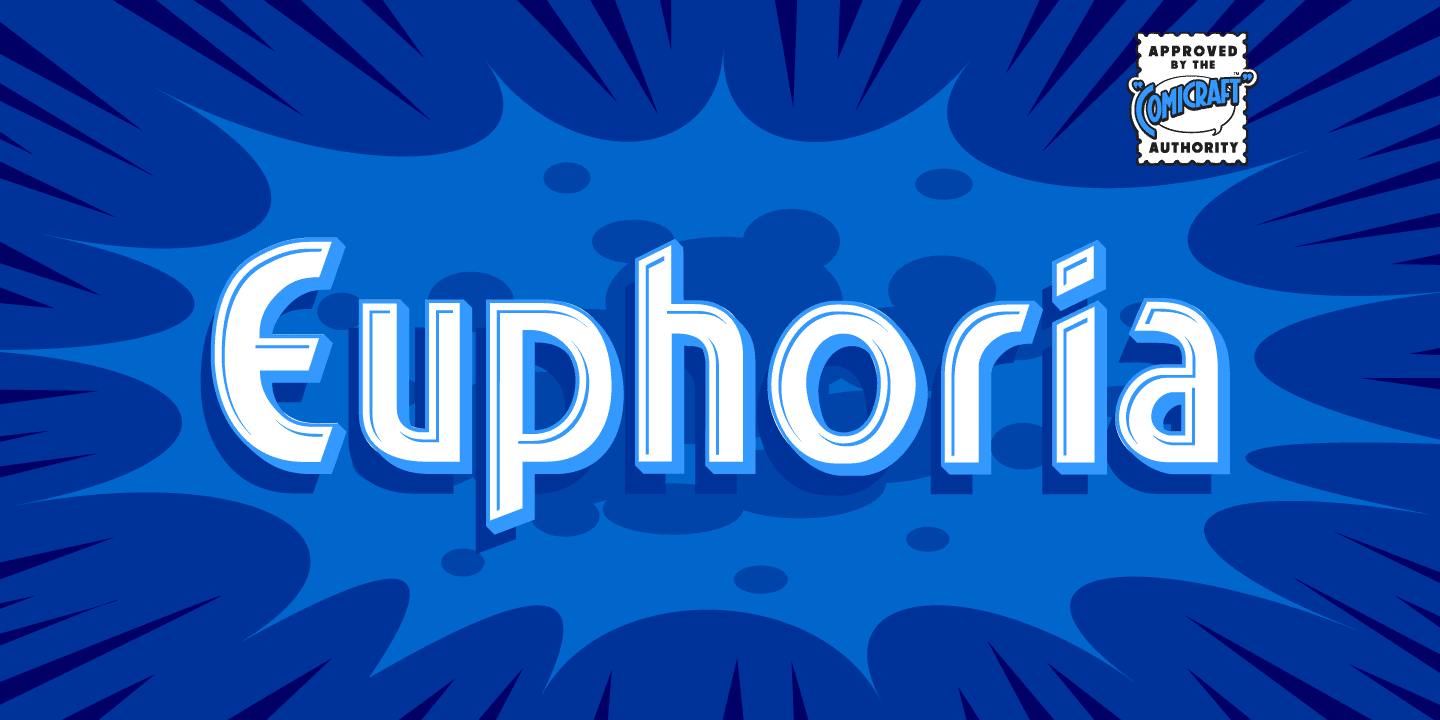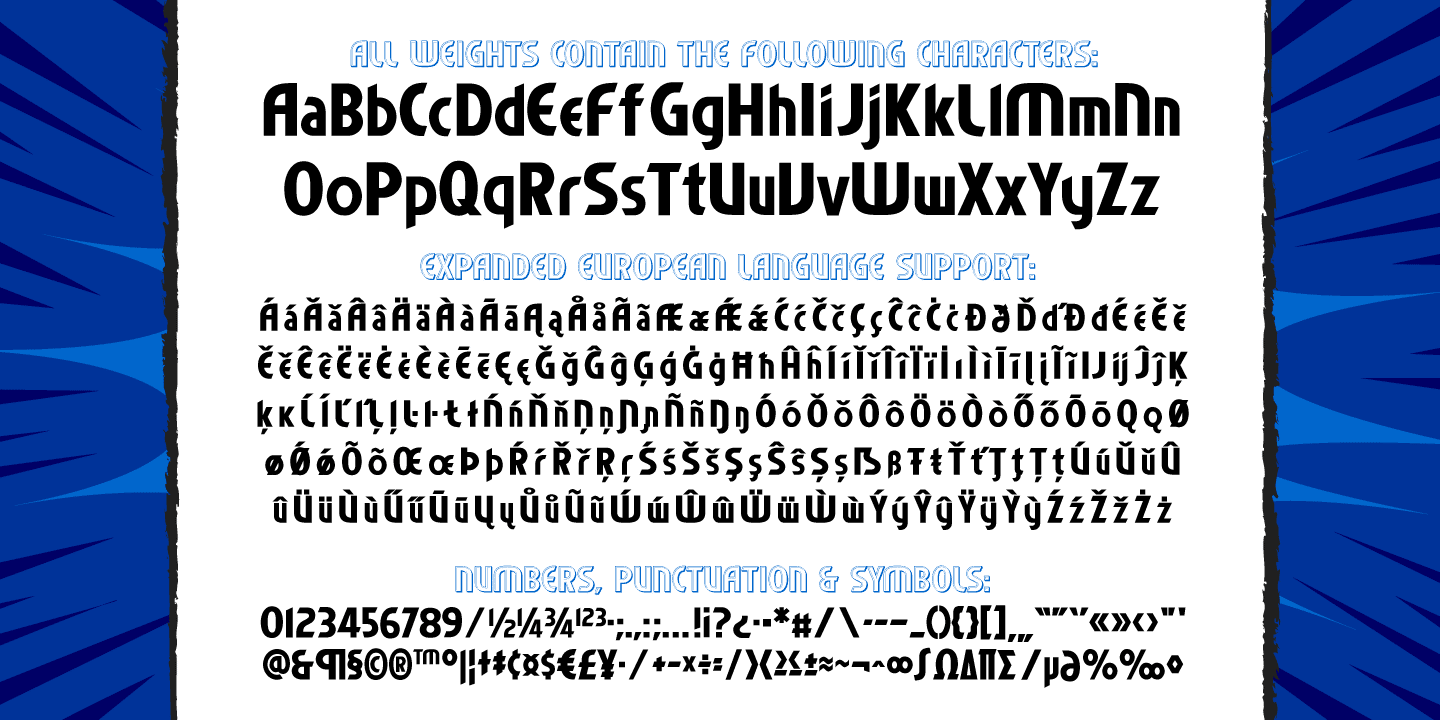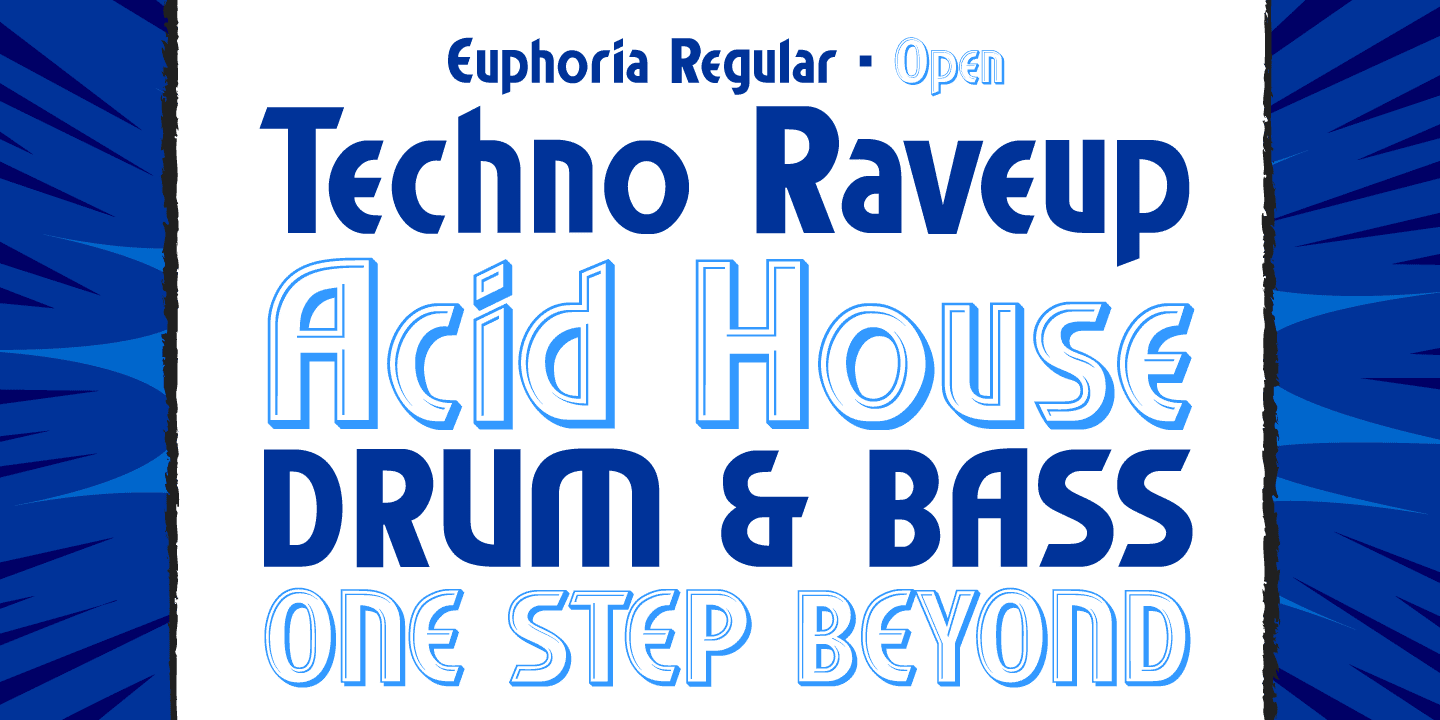
Euphoria
Font Family by Comicraft Fonts
Buy NowIf you're searching for the perfect beat, let us guide your soul deep into the abyss. Reach higher ground with the ambient textures and boomboy shredder baseline of this funky dope font created by our digital chemist and cerebral craftsman, John "JG" Roshell. Rave un2 the joy fontastic. Rain or shine, you are covered, see you on the dancefloor.